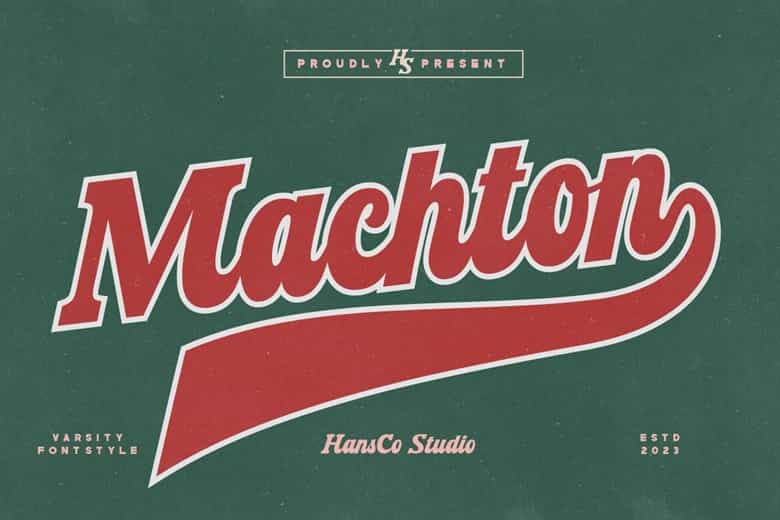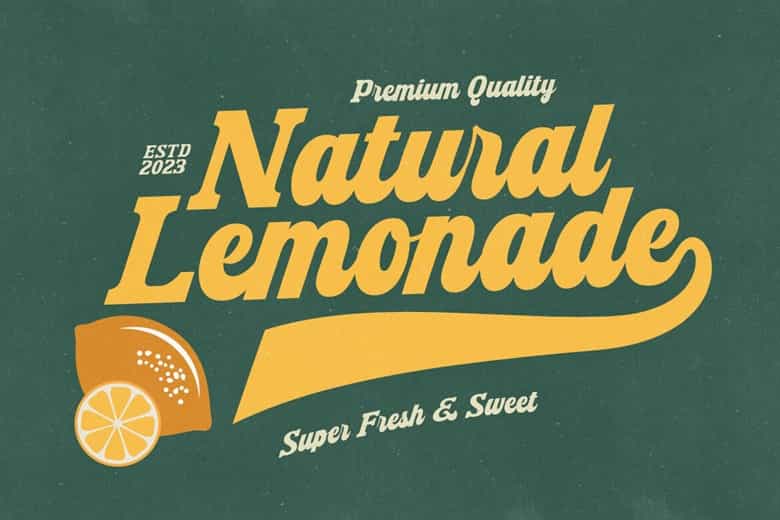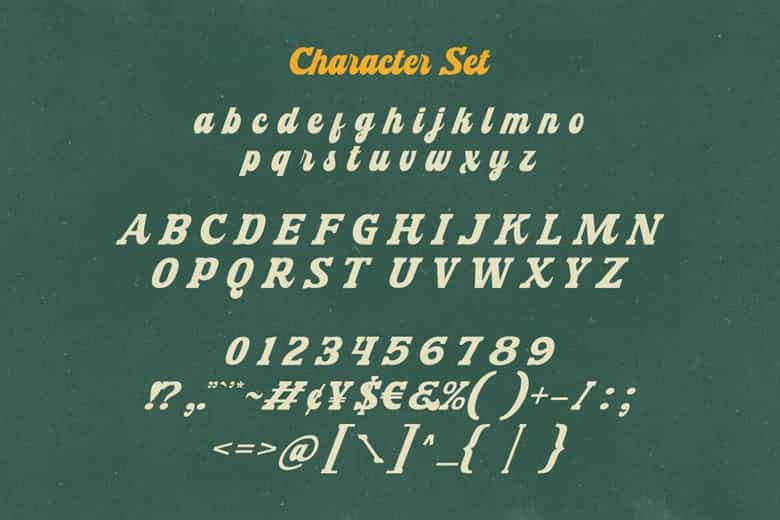
Discover Machton Font, part of the Serif Script collection—a versatile and unique font perfect for adding a personal touch to your projects. Download it for free and enjoy crafting designs with style, from invitations to social media posts. This font is available exclusively for personal use, giving you the freedom to create without limits. Unlock your creativity with Machton Font today!
Machton is a bold modern retro script serif font that will take you back to the 70s. Increase the quality of design projects with our premium digital fonts designed for Canva and Cricut lovers. Whether you are creating something for yourself or performing a professional task, our collection of premium font will help you find your own creative focus.